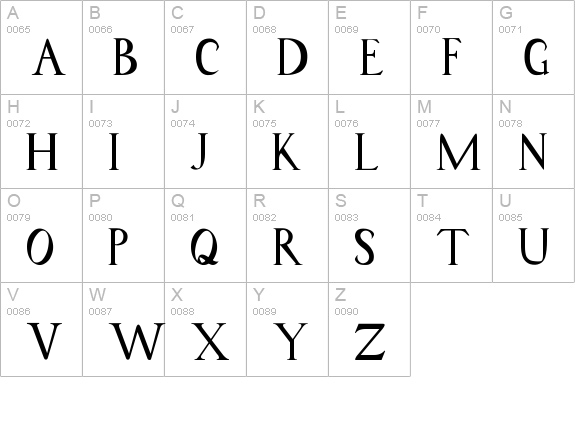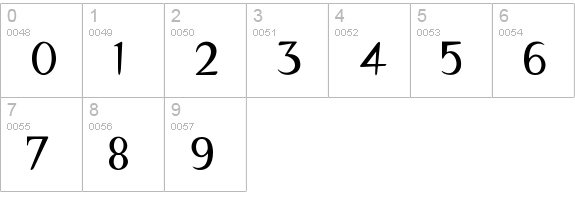
Coriannis Regular Font Details
Coriannis Regular is the standard, neutral variant in the Coriannis typeface family \xE2\x80\x94 well suited to general body text, paragraphs, and standard typographic work.
Coriannis Regular font is a versatile and elegant typeface that exudes sophistication and modernity. With its clean lines and balanced proportions, this font is perfect for a wide range of design projects, from branding to editorial design. The timeless appeal of Coriannis Regular makes it a classic choice for any designer looking to add a touch of refinement to their work. The best part? Coriannis Regular is available for free download at FontsMarket.com. That's right, you can elevate your design projects with this stunning font without spending a dime. Whether you're working on a logo, website, or print materials, Coriannis Regular is sure to make a lasting impression. Download it today and see for yourself the impact this font can have on your designs.